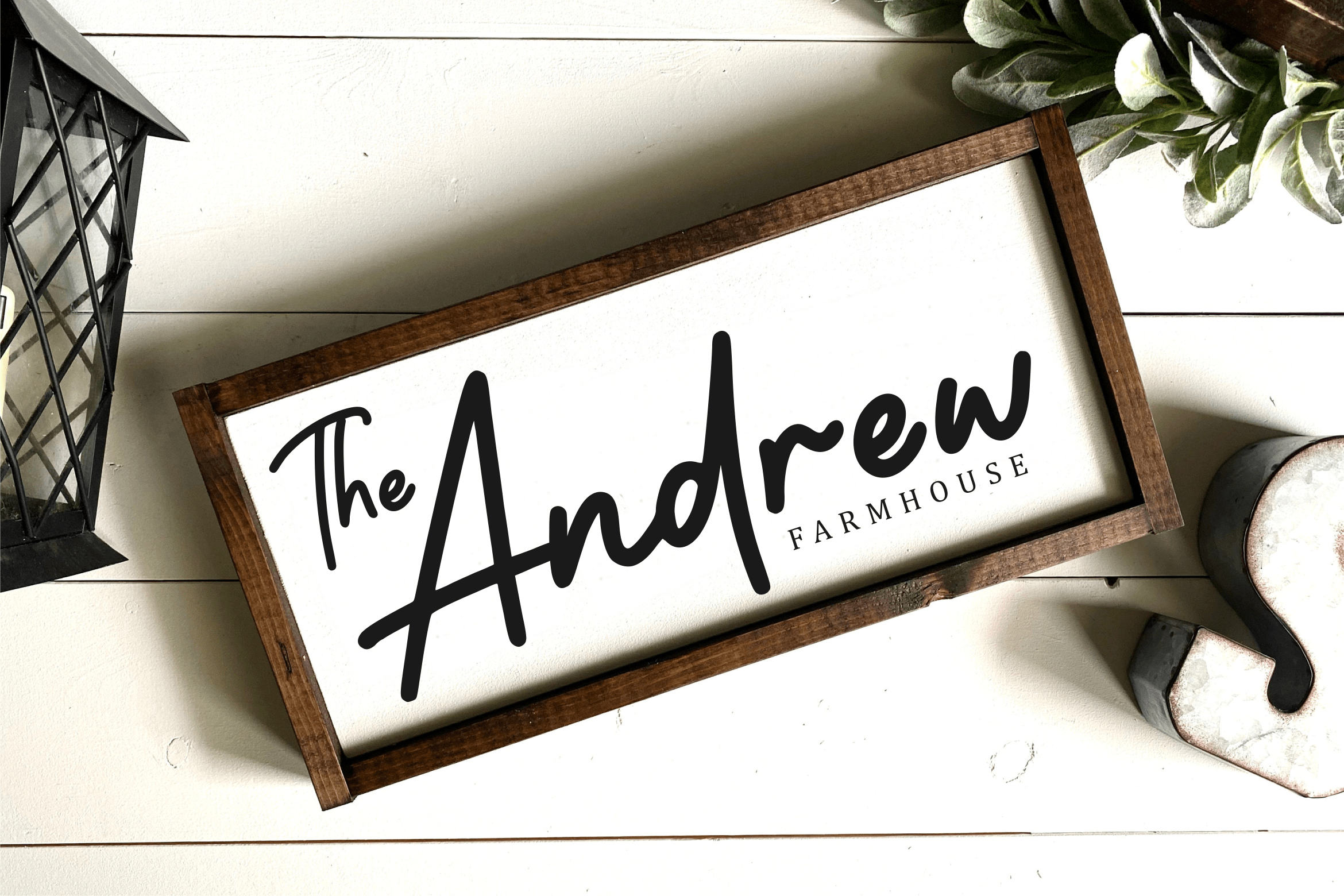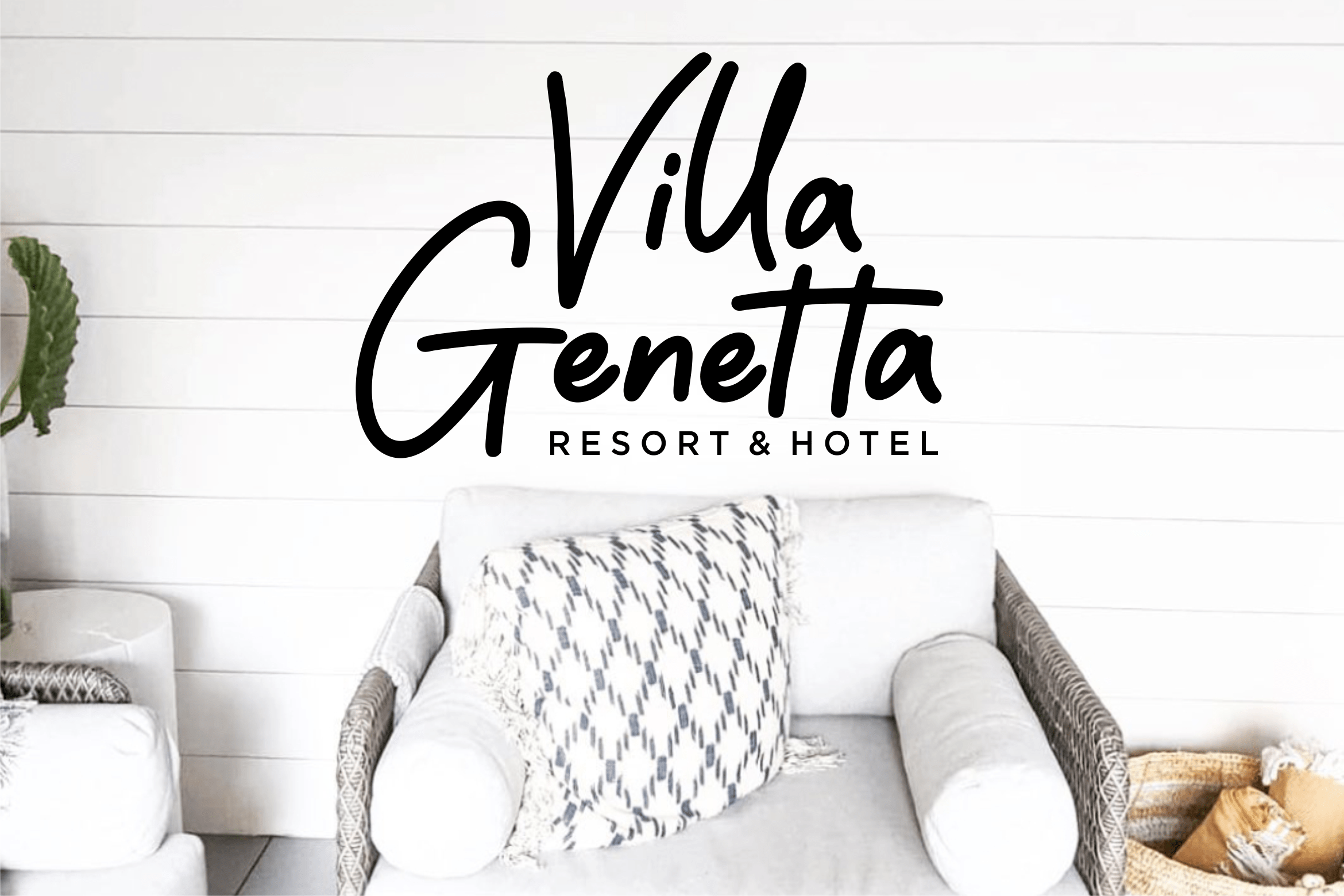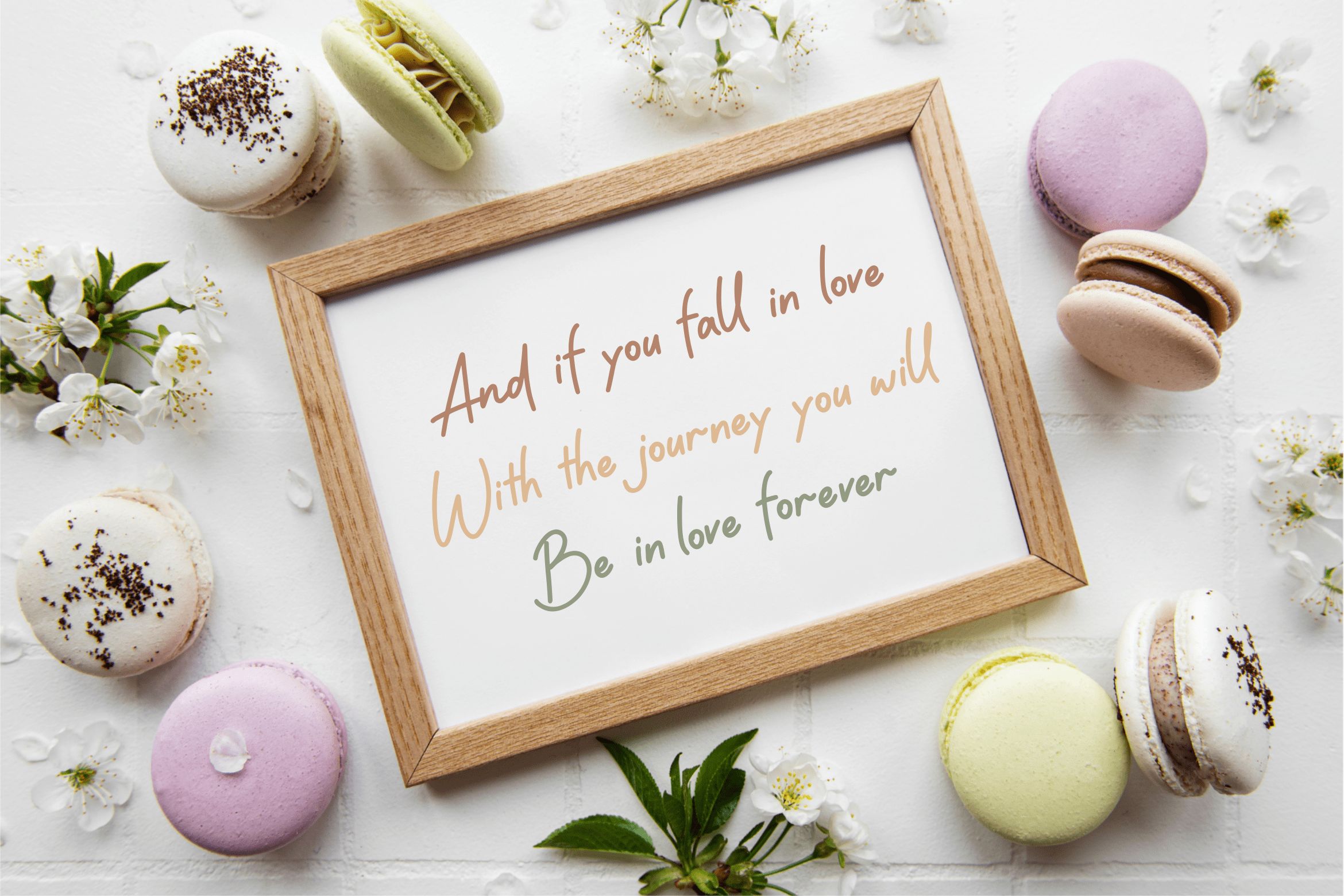
Le Journey Script Font
This is a thin lettered and cute looking handwritten font. It can be used for various creative ideas such as headings, logos, covers, magazines and so much more.